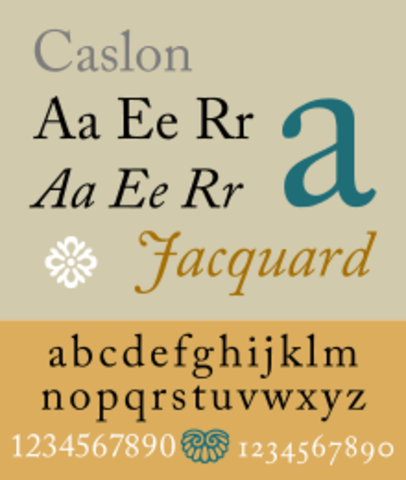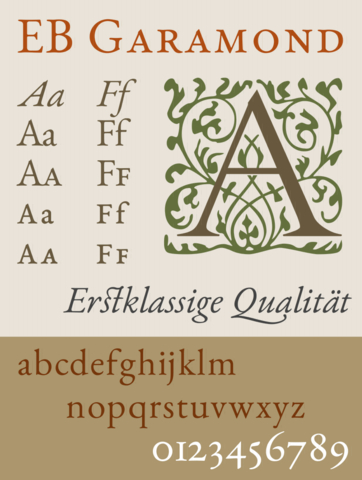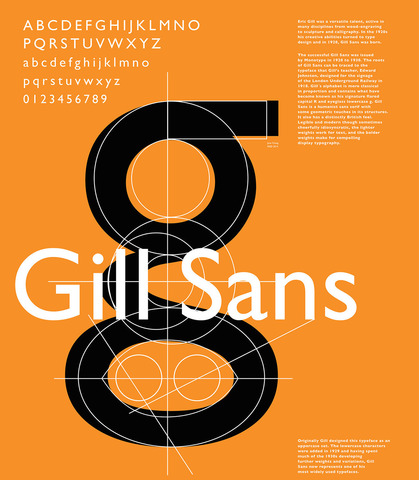
Garamond is a group of many old-style serif typefaces, originally those designed by Parisian craftsman Claude Garamond and other 16th century French engravers, and now many modern revivals. Though his name was written as 'Garamont' in his lifetime, the typefaces are generally spelled 'Garamond'.
Caslon is a group of serif typefaces designed by William Caslon I (1692–1766) in London. Caslon worked as an engraver of punches, the masters used to stamp the moulds or matrices used to cast metal type. He worked in the tradition of what is now called old-style serif letter design, that produced letters with a relatively organic structure resembling handwriting with a pen.
Gill Sans is a sans-serif typeface designed by Eric Gill and released by the British branch of Monotype from 1928 onwards.